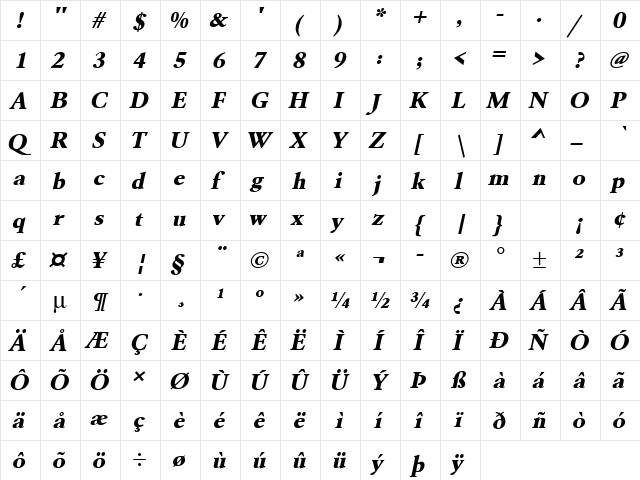
URWGaramondTExtBolWid Oblique
Design Context for URWGaramondTExtBolWid Typeface
URWGaramondTExtBolWid offers clean, dependable letterforms without strong stylistic allegiance, making it a practical choice for designers who need flexibility. The dynamic lean of this cut emphasises speed and emphasis in any layout.
Pro Tip: Try URWGaramondTExtBolWid for annotation and caption copy alongside an upright companion — the contrast in angle creates a dynamic but ordered typographic system.